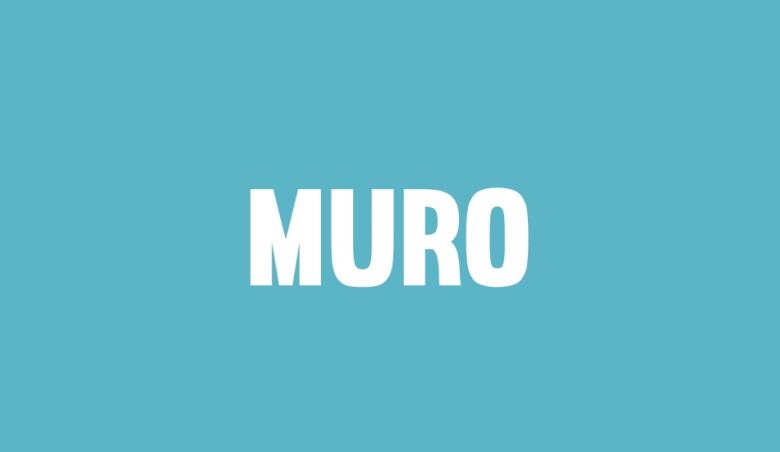
Muro Font
Muro Font is a high quality Sans Serif font that is designed by La Tipomatica and is available for free download personal & commercial use. The free version provides all uppercase and lowercase letters and a few special characters too.
Muro Sans Serif Font